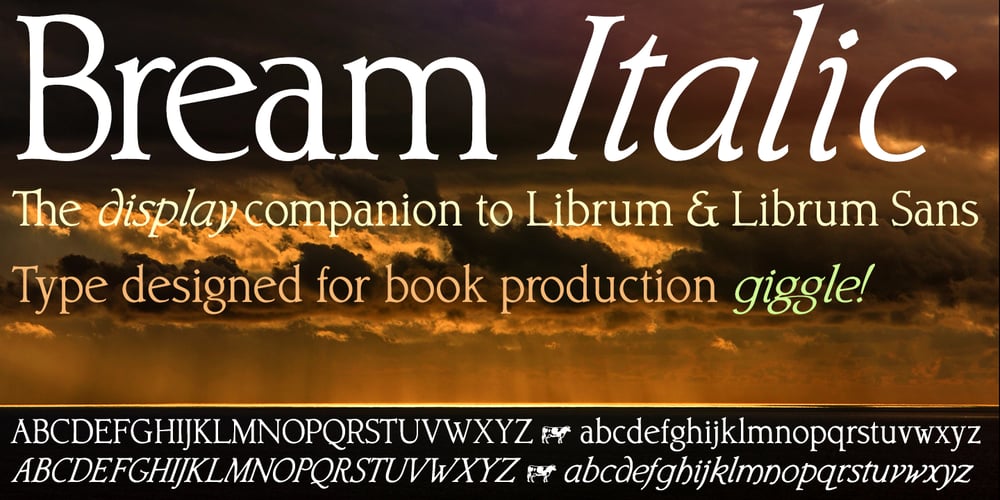
Bream Font Family was designed by David Bergsland and published by Hackberry Font Foundry. Bream contains 2 styles and family package options. This is the display version of Librum. Librum means “book” in Latin, which I thought was appropriate. Bream is Latin for proclaim—appropriate for display work. The fonts are very close to Librum-Book and Librum-Italic, with the same OpenType features. The glyphs are modified a bit to make them a little more elegant, but that’s not very noticeable. Mainly, the letterspacing and kerning is tighter and more carefully fit to large point sizes. As for classification, I like oldstyle, Venetian, geralde, English oldstyle. There’s discrete modulation, slanted crossbars, full brackets serifs of medium thickness and sharp cut ends. For a great deal, see Librum Book Design Group, for a package containing all fifteen fonts!